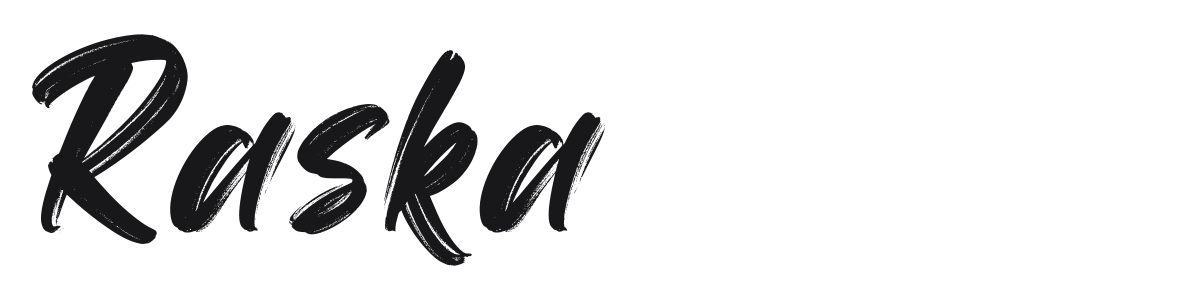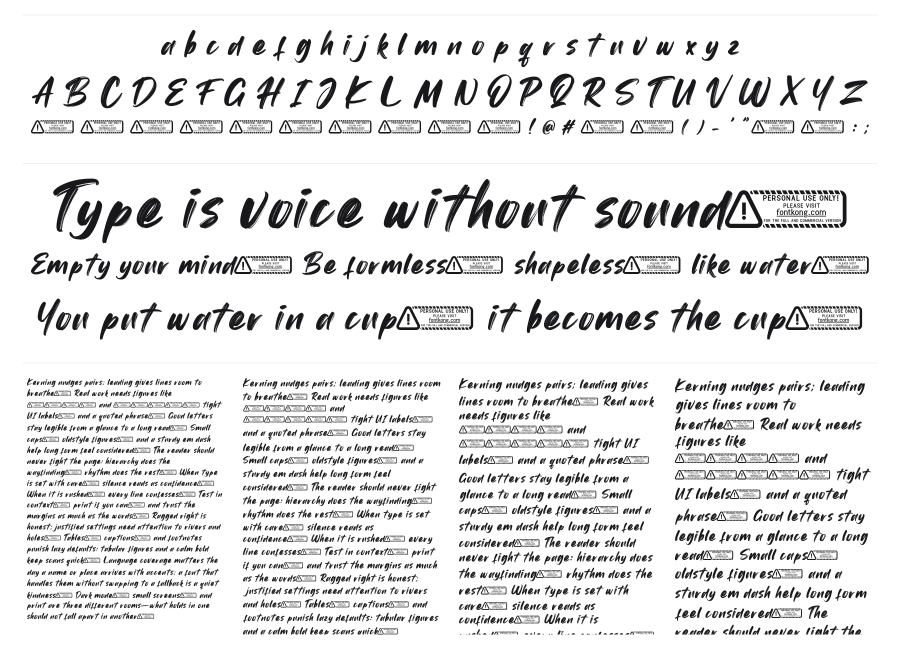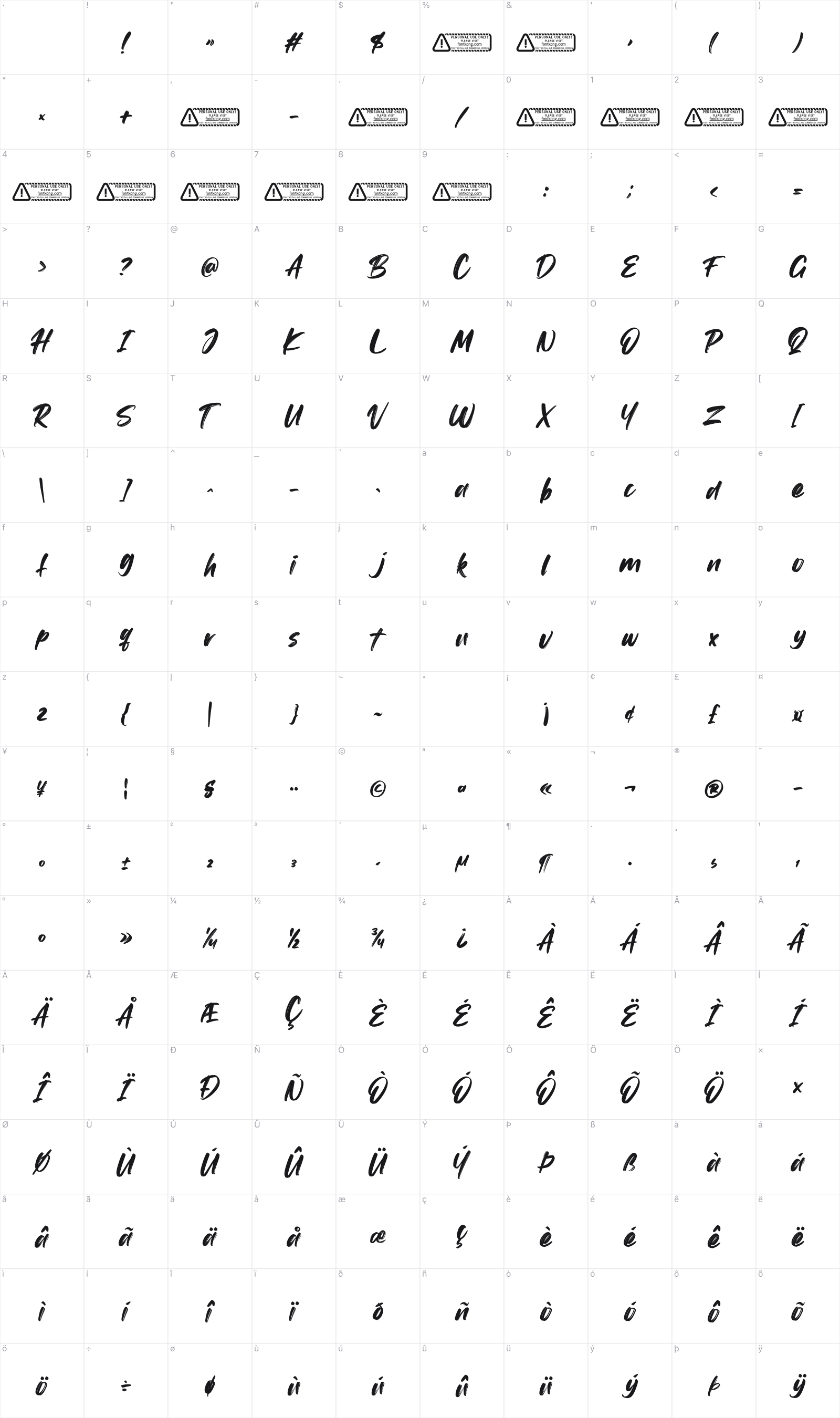
Raska
Raska is a raw, ink-heavy brush script built around the energy of a real bristle brush moving fast across paper. The stroke contrast is extreme, with thick swells and hairline crossings that catch the light differently at every angle. It carries the kind of rough authenticity that works in branding, packaging, and anywhere a handcrafted feeling matters.